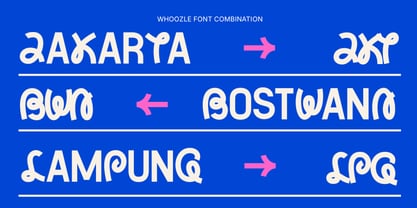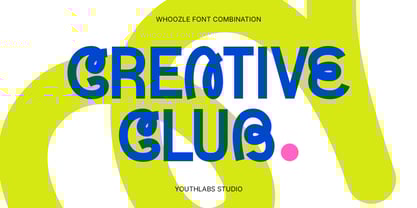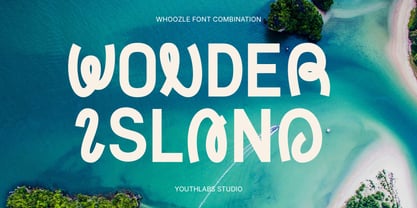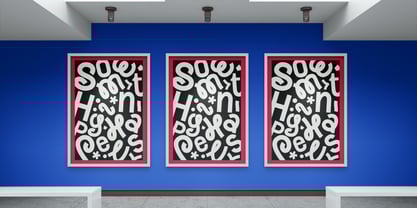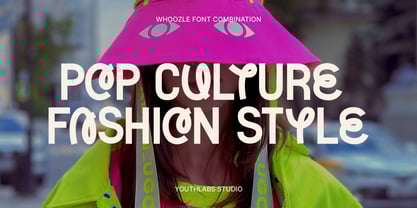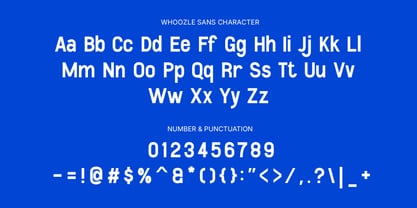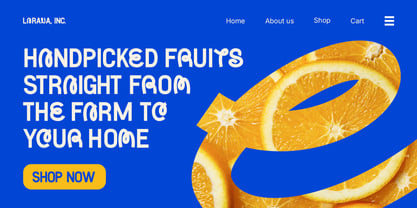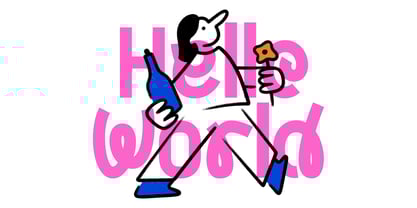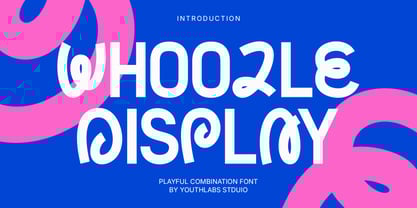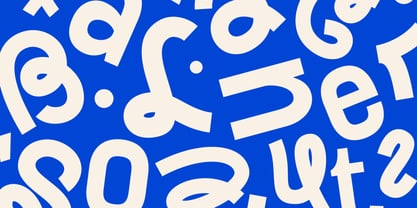
Whoozle
by Youthlabs
The Whoozle Font Family was designed by Fathi Al Ghazi and published by Youthlabs. Whoozle contains 2 styles and family package options. More about this family
Say hello to Whoozle Display, a high-energy typeface that fuses boldness with a twist—literally. This modern display font is built on a solid sans-serif foundation but dances with unexpected, looped flourishes that give each character a sense of motion and individuality.
Designed for creatives who refuse to play it safe, Whoozle Display is loud, expressive, and full of attitude. It's the perfect choice for youth-centric brands, music festivals, fashion drops, and digital creatives looking to bring a funky edge to their work.